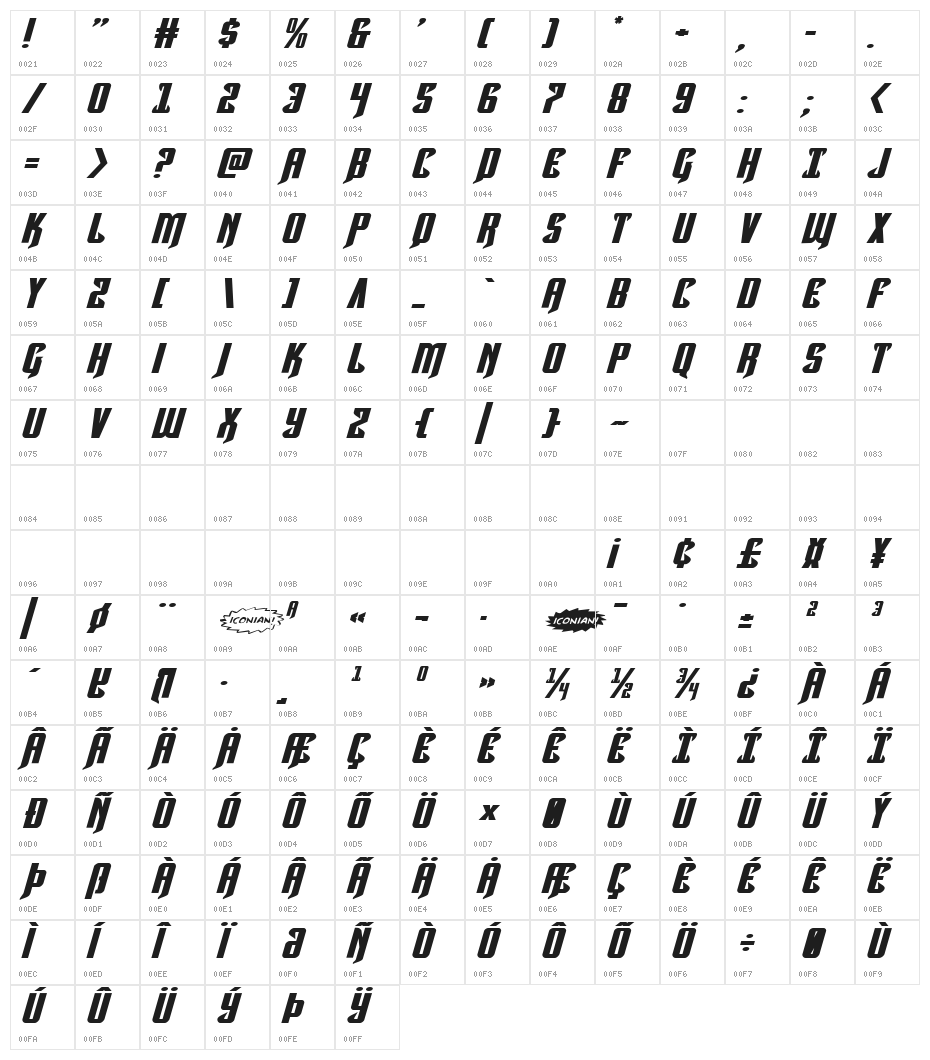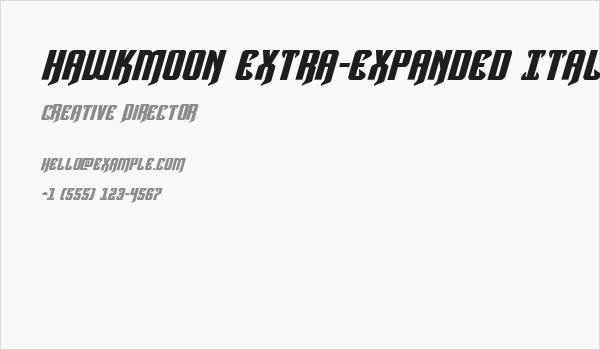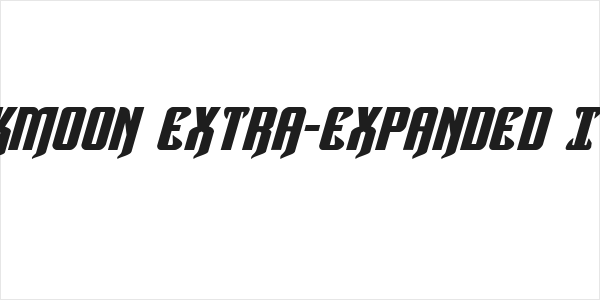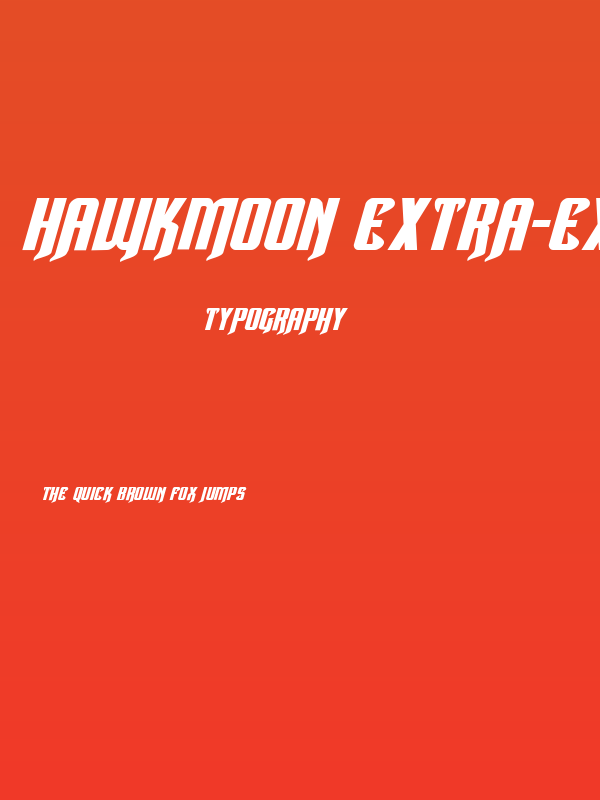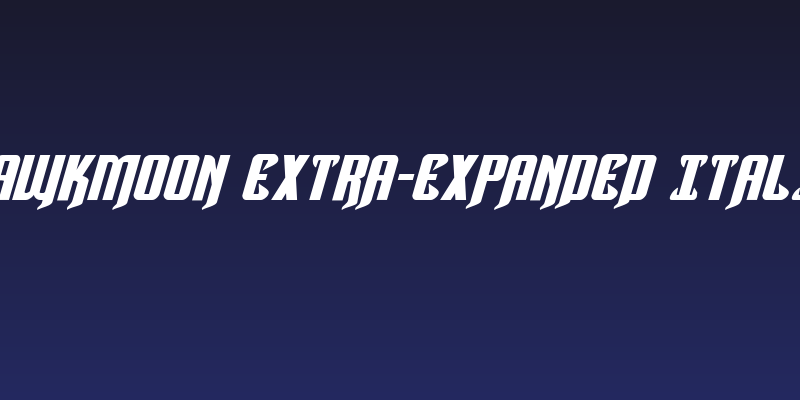
Hawkmoon Extra-expanded Italic Font
Hawkmoon Extra-expanded Italic Description
This font exhibits a bold and dynamic style with a strong italic slant, giving it a sense of motion and energy. The characters are extra-expanded, providing a wide stance that enhances its presence. The sharp, angular edges and distinct geometric shapes contribute to its modern and assertive appearance. The uppercase and lowercase letters maintain a consistent style, while the numerals and special characters complement the overall design. The font's boldness and expanded width make it highly visible and impactful, suitable for attention-grabbing applications.